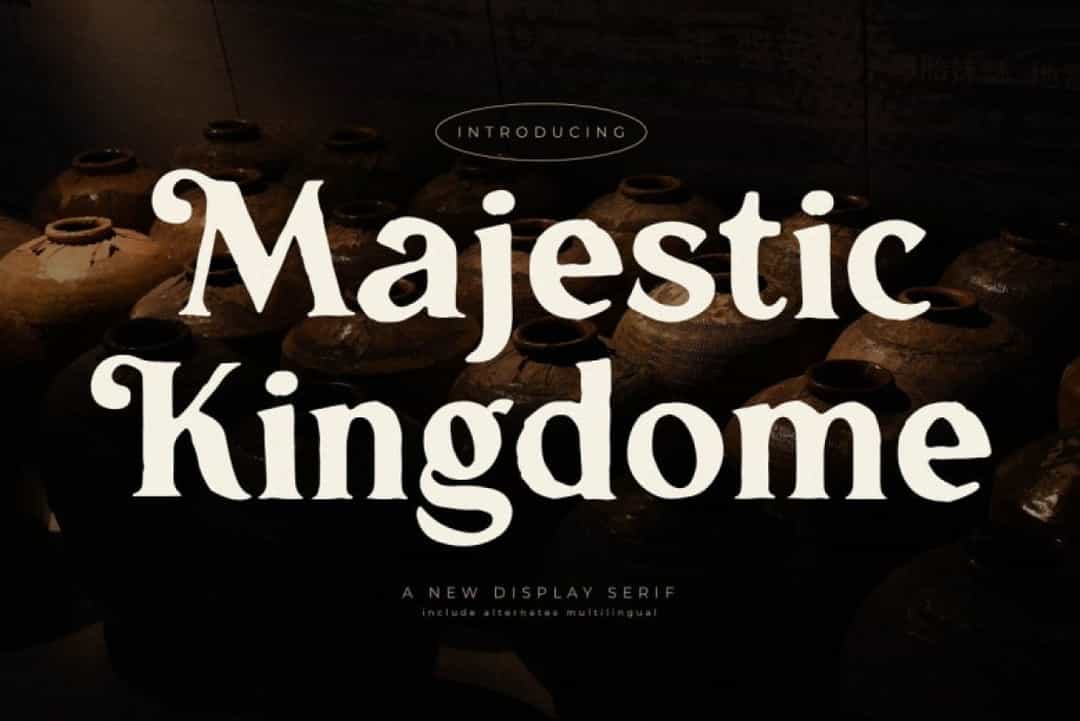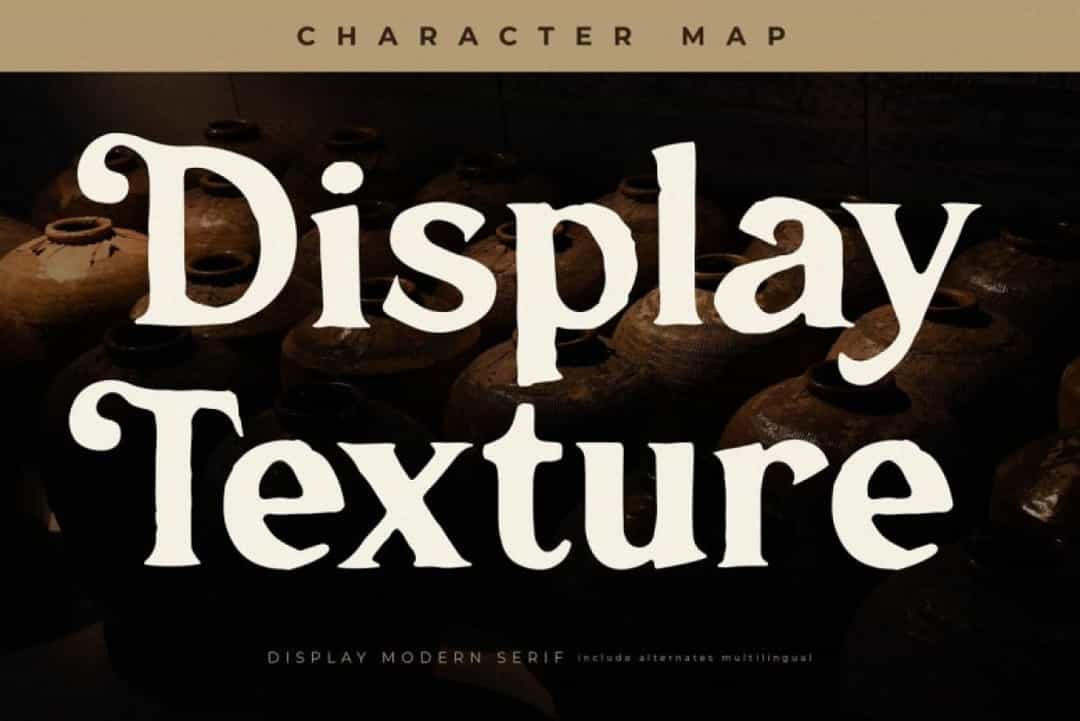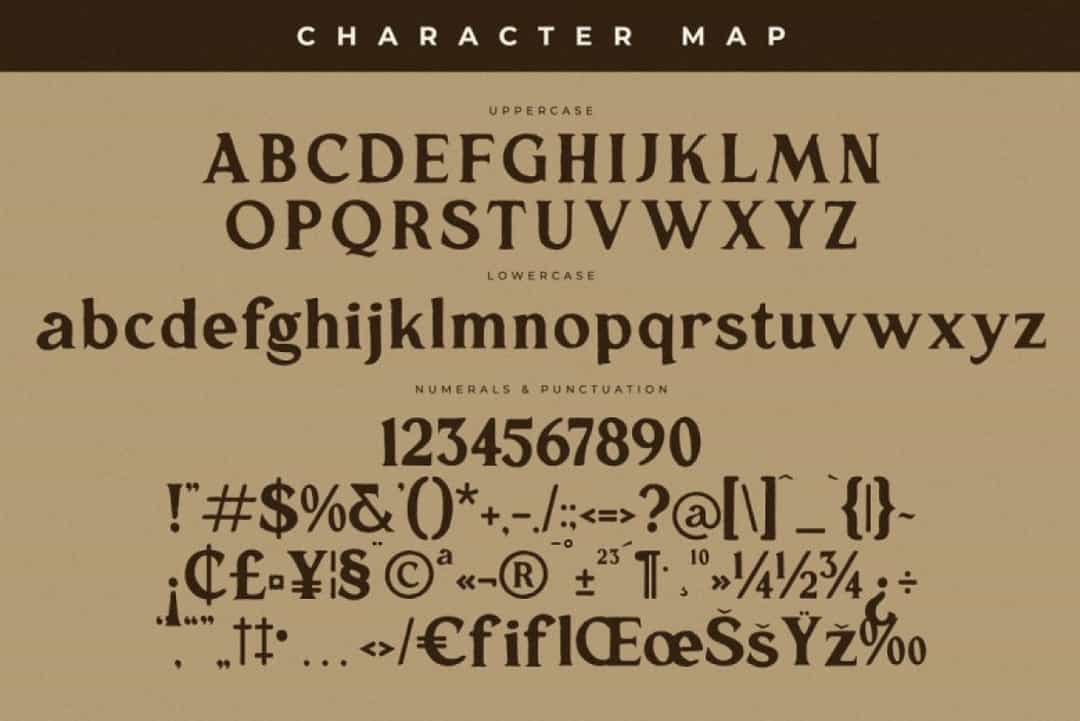
Majestic Kingdome is a modern display serif font designed with its own distinct style and appearance. Ideal for sophisticated logo designs, book or film styling projects, fashion label clothing production lines, magazines, lettering projects as well as quotes – Majestic Kingdome makes an impressive first impression in any environment!